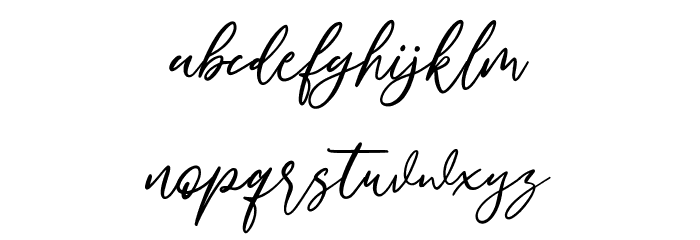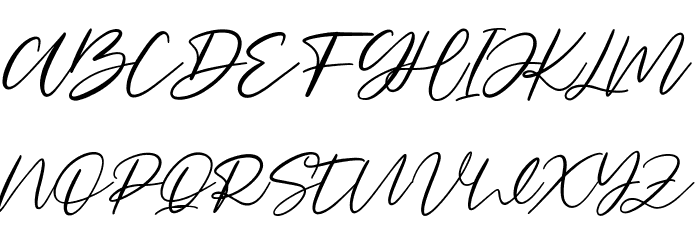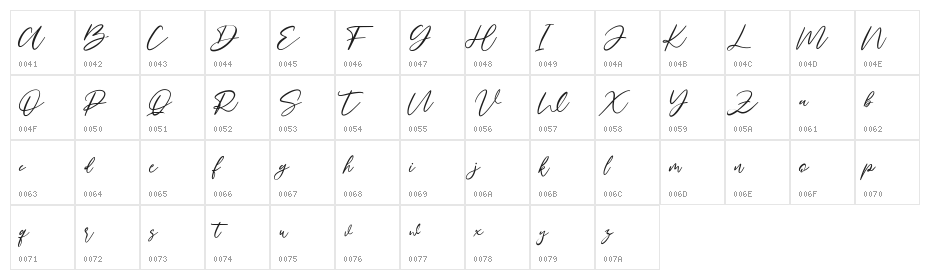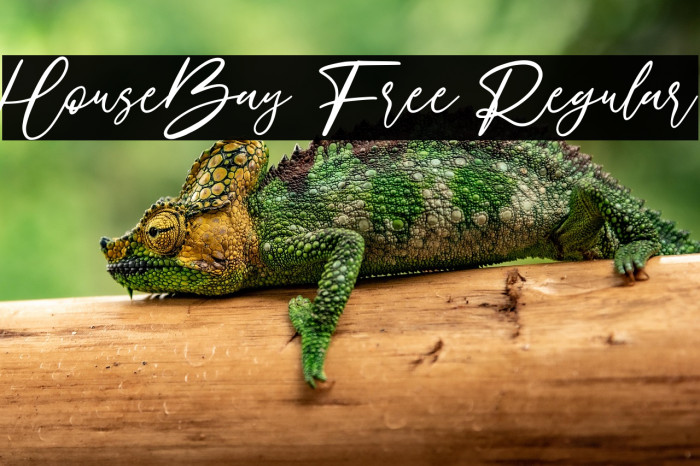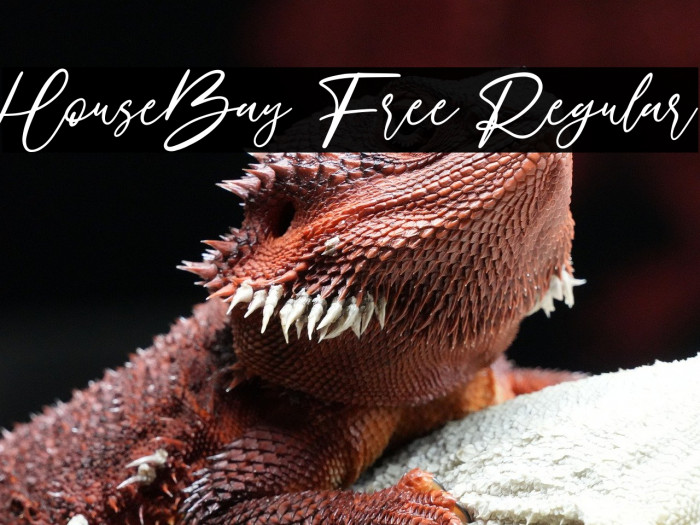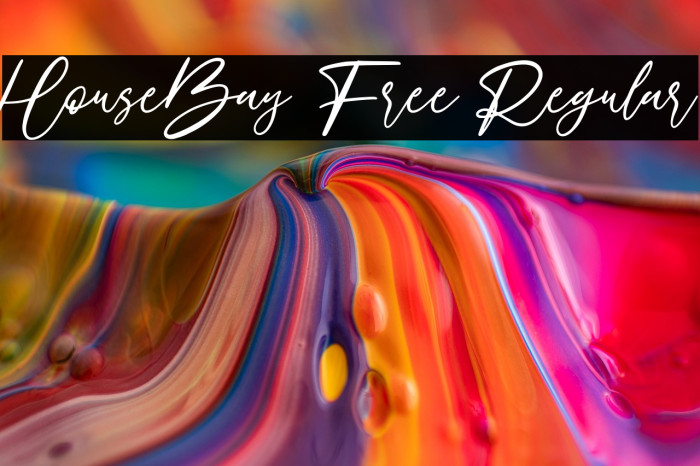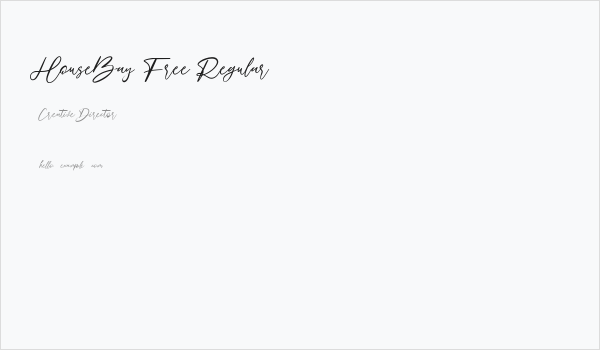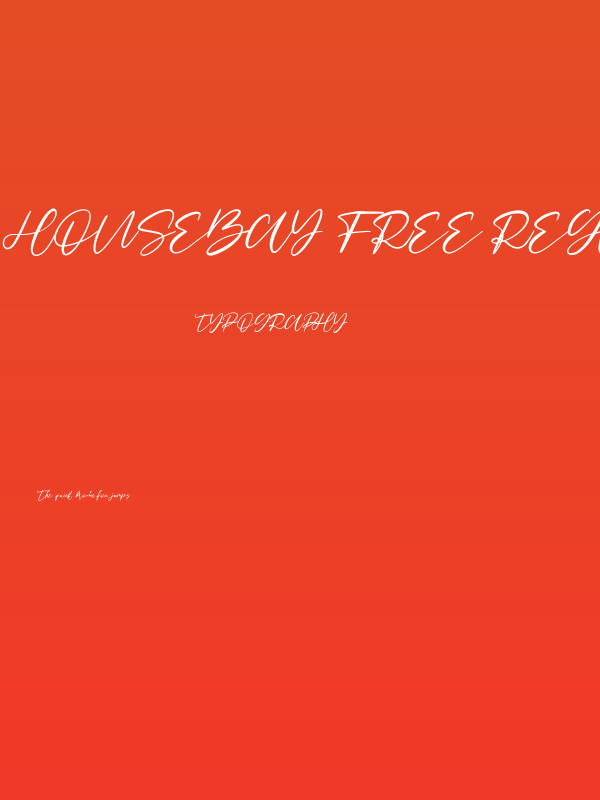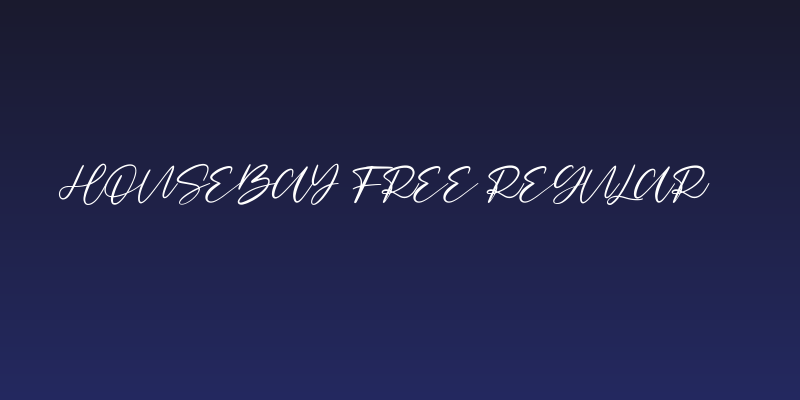
HouseBay Free Regular Font
This font exhibits a flowing, cursive style with elegant, sweeping strokes that convey a sense of fluidity and grace. The characters are interconnected, creating a seamless and continuous appearance. The uppercase letters are bold and prominent, while the lowercase letters maintain a delicate and refined look. The overall design is reminiscent of traditional calligraphy, yet it retains a modern touch, making it versatile for various design applications. The font's script nature adds a personal and artistic flair, suitable for creative projects that require a touch of sophistication.
A flowing, cursive script font with elegant, interconnected strokes.
- Font: HouseBay Free Regular
- Proposed Projects: Ideal for wedding invitations, greeting cards, branding, and logo design.
- Category: Script
- Character Spacing: Tight
- Use Case: Logos, Invitations, Decorative text